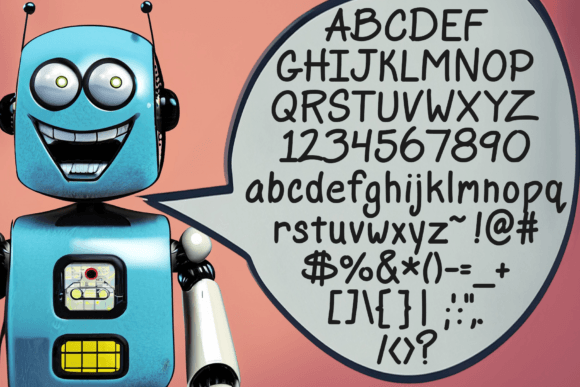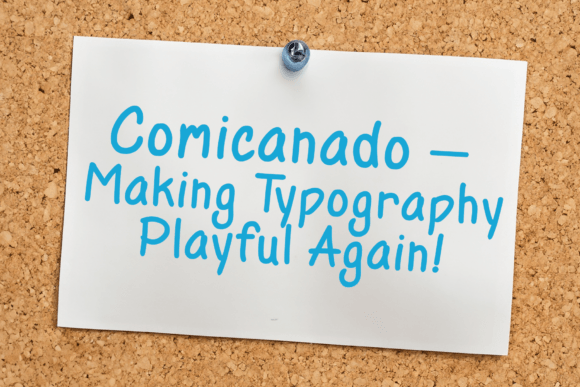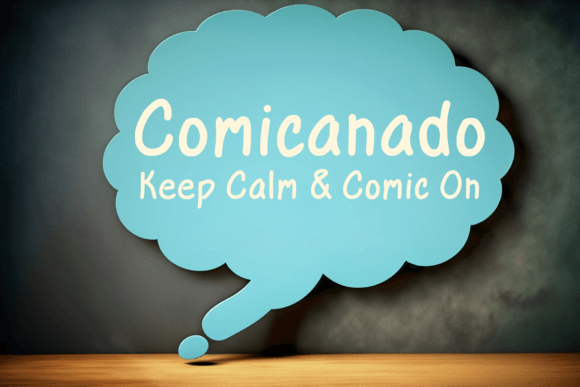
Unleash Your Comic Creativity with Comicanado Font
Are you a comic artist, designer, or crafter looking for a font that can elevate your visuals and bring your creative ideas to life? Look no further than Comicanado, the ultimate choice for comic artist aficionados. This versatile font is specifically designed to offer a blend of comic-inspired fun and professional finesse, making it the perfect solution for all your comic design needs.
The Birth of Comicanado
Comicanado was created with the aim of providing a unique and engaging font that captures the essence of comic books and graphic novels. Its design is inspired by the classic comic book style, with bold lines, dynamic shapes, and a playful flair. At the same time, Comicanado also boasts a level of sophistication and elegance that makes it suitable for a wide range of design applications, from children’s books to advertising and branding.
Key Features of Comicanado Font
- Comic-inspired design: Comicanado features a bold and dynamic design that is reminiscent of classic comic books. Its unique letterforms and shapes are sure to grab attention and add a touch of playfulness to your designs.
- Professional finesse: While Comicanado has a fun and playful vibe, it also boasts a level of sophistication and elegance that makes it suitable for professional design applications.
- Versatility: Comicanado is a versatile font that can be used for a wide range of design projects, from children’s books to advertising and branding.
- Easy to read: Despite its bold and dynamic design, Comicanado is easy to read, even at small sizes.
Why Choose Comicanado Font?
So why choose Comicanado font for your design projects? Here are just a few reasons:
- Unique and engaging: Comicanado is a one-of-a-kind font that is sure to grab attention and add a touch of personality to your designs.
- Time-saving: With Comicanado, you can create professional-looking designs in no time. Its easy-to-read letterforms and versatile design make it easy to use for a wide range of projects.
How to Use Comicanado Font
Using Comicanado font is easy. Here are a few tips to get you started:
- Pair it with other fonts: Comicanado can be paired with other fonts to create a unique and engaging design. Try pairing it with a sans-serif font for a bold and modern look.
- Experiment with colors: Comicanado looks great in a variety of colors. Try experimenting with different color schemes to add some personality to your designs.
- Use it for headlines and titles: Comicanado is perfect for headlines and titles, where its bold and dynamic design can really shine.
Comicanado Font in Action
Comicanado font can be used in a wide range of design applications, from children’s books to advertising and branding. Here are a few examples of how Comicanado can be used in action:
- Children’s books: Comicanado is perfect for children’s books, where its playful and engaging design can help bring the story to life.
- Comic books and graphic novels: Comicanado is a natural fit for comic books and graphic novels, where its bold and dynamic design can add a touch of authenticity.
- Advertising and branding: Comicanado can also be used for advertising and branding, where its unique and engaging design can help grab attention and build recognition.
In conclusion, Comicanado font is the perfect choice for comic artist aficionados, designers, and crafters looking for a versatile and engaging font solution. With its comic-inspired design, professional finesse, and ease of use, Comicanado is sure to elevate your visuals and bring your creative ideas to life. So why wait? Unleash your comic creativity with Comicanado font today!